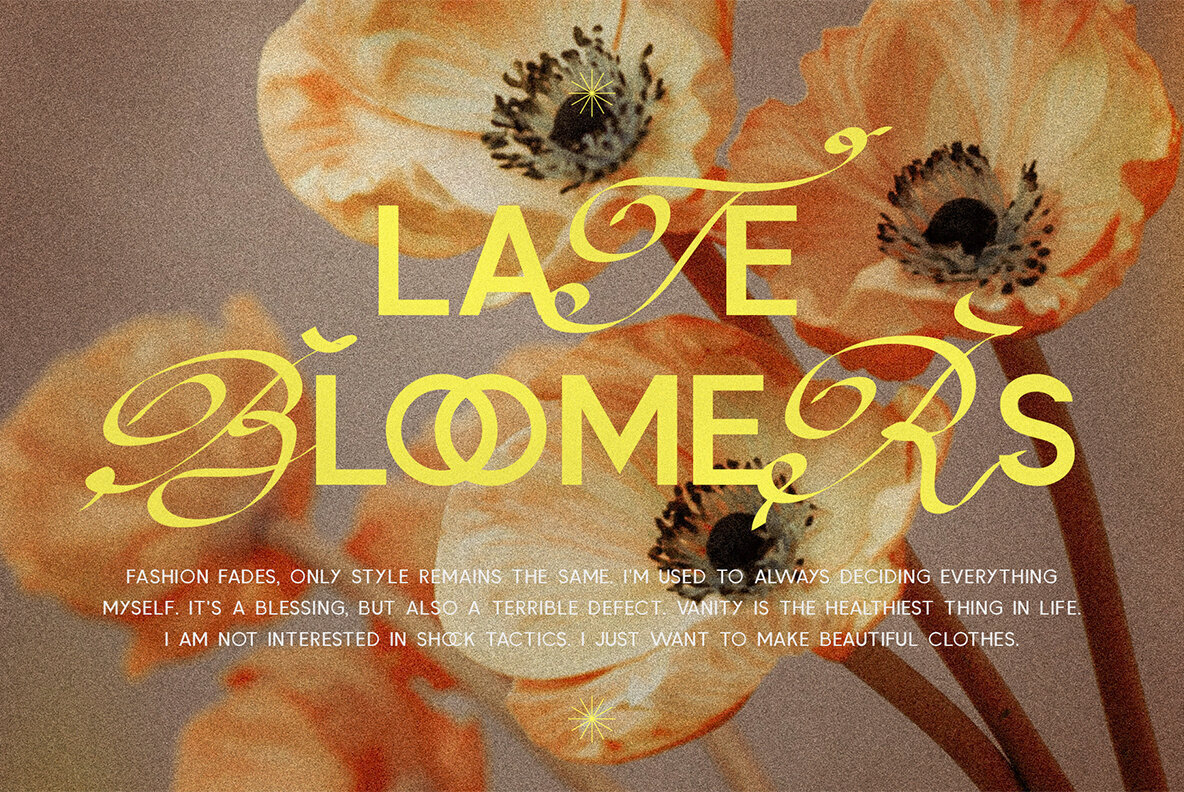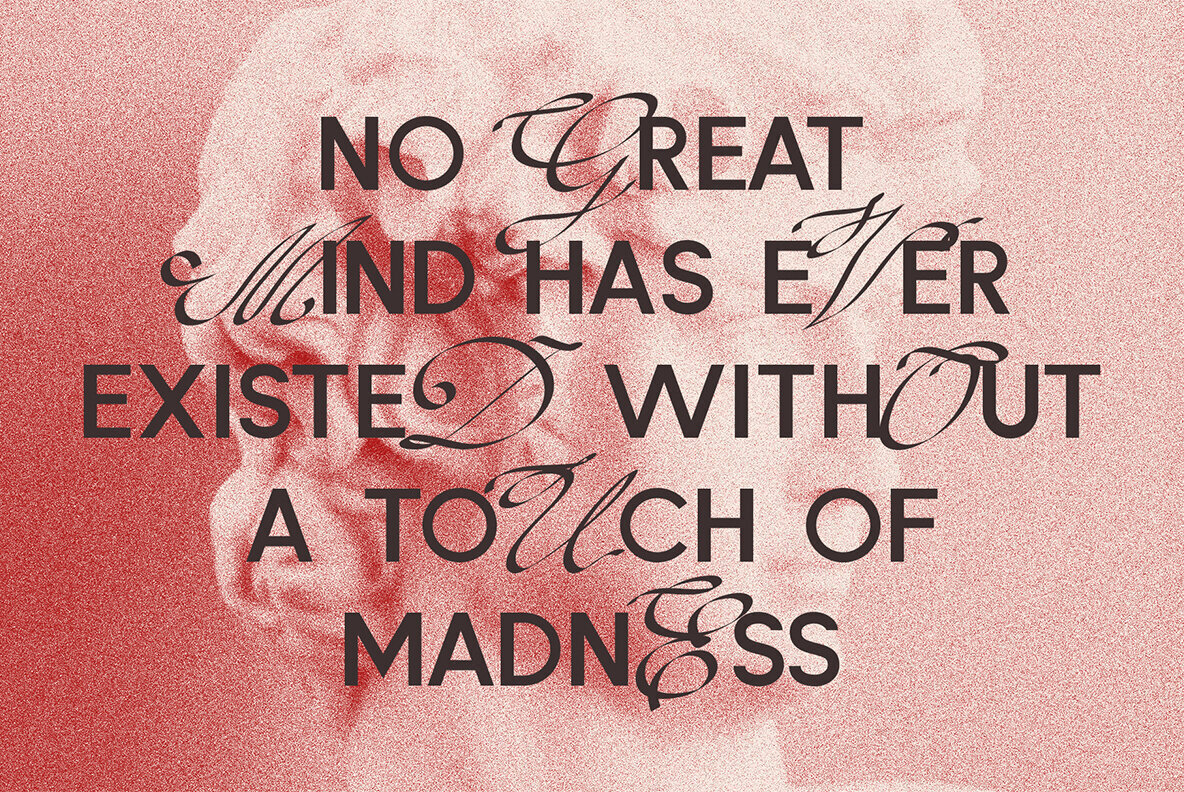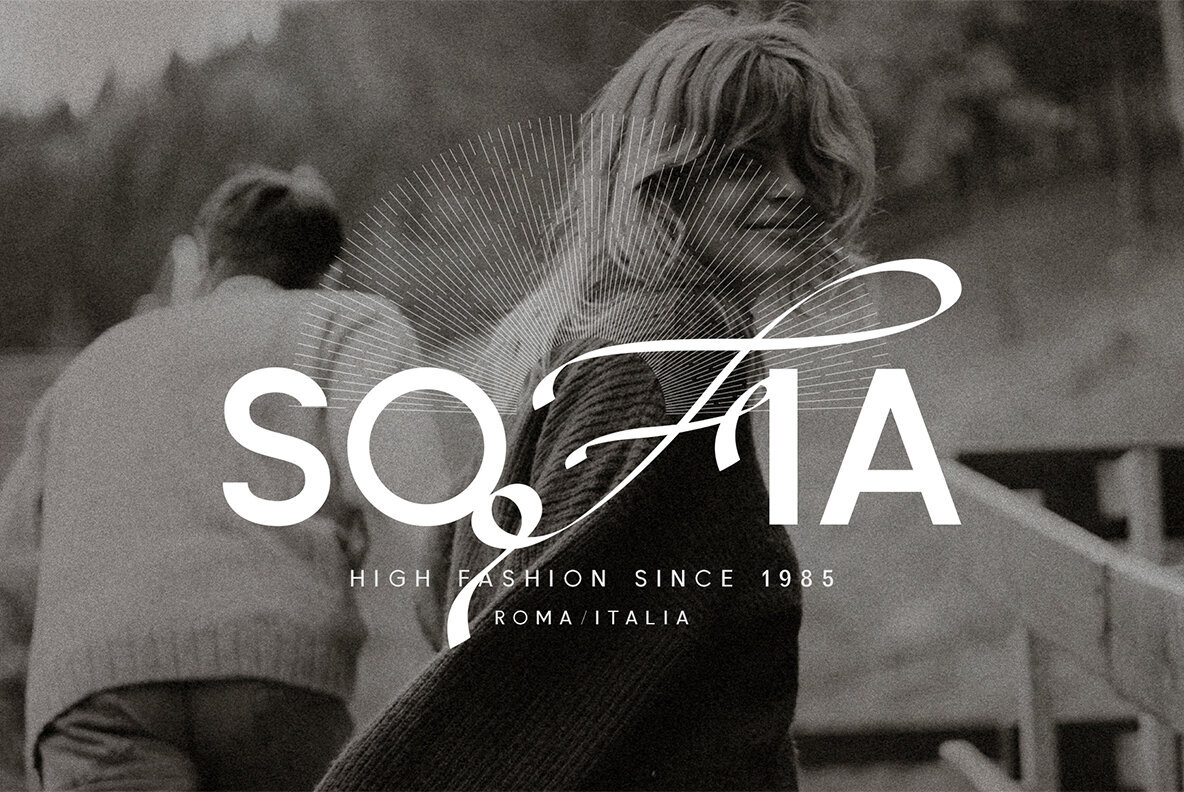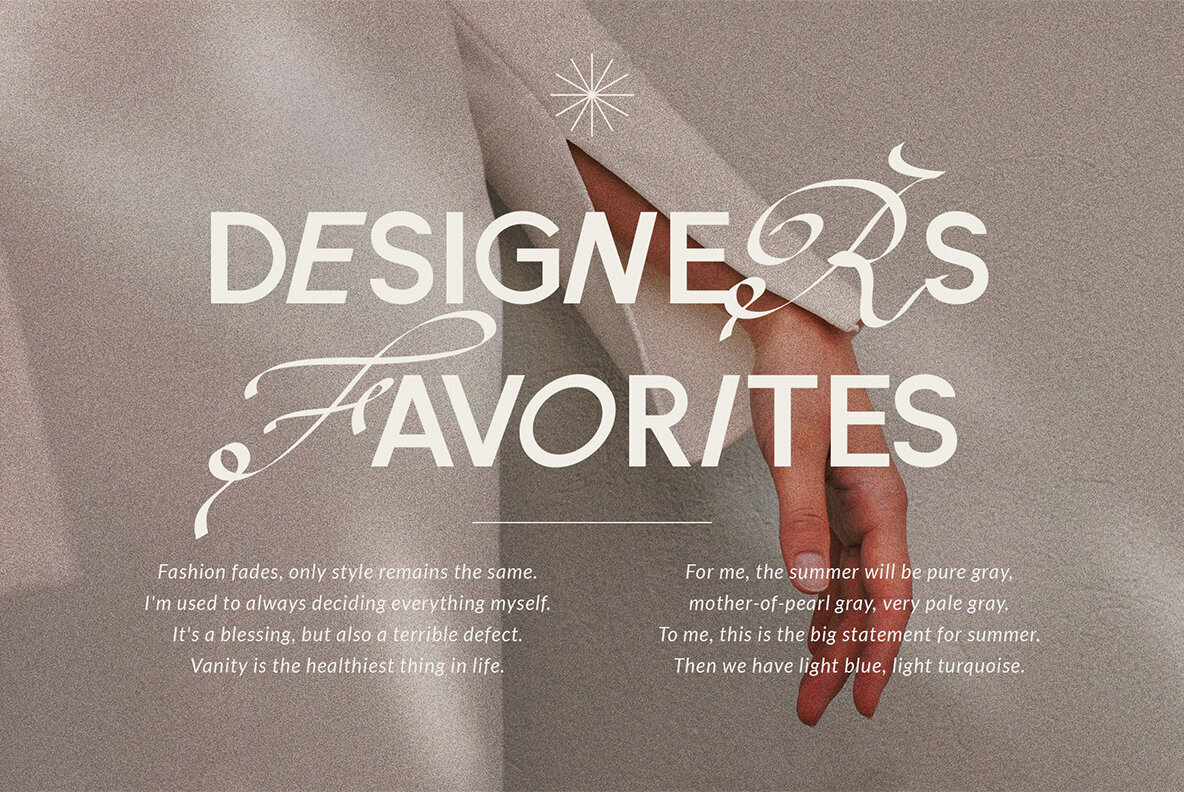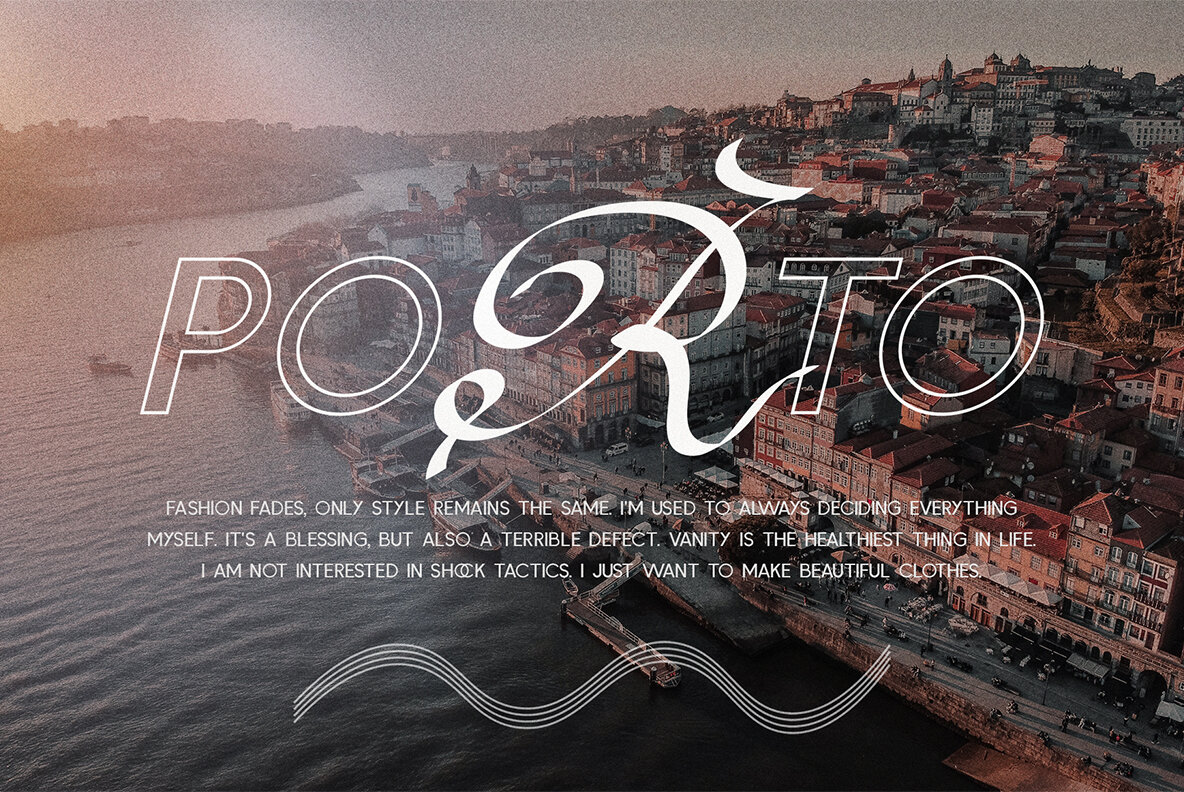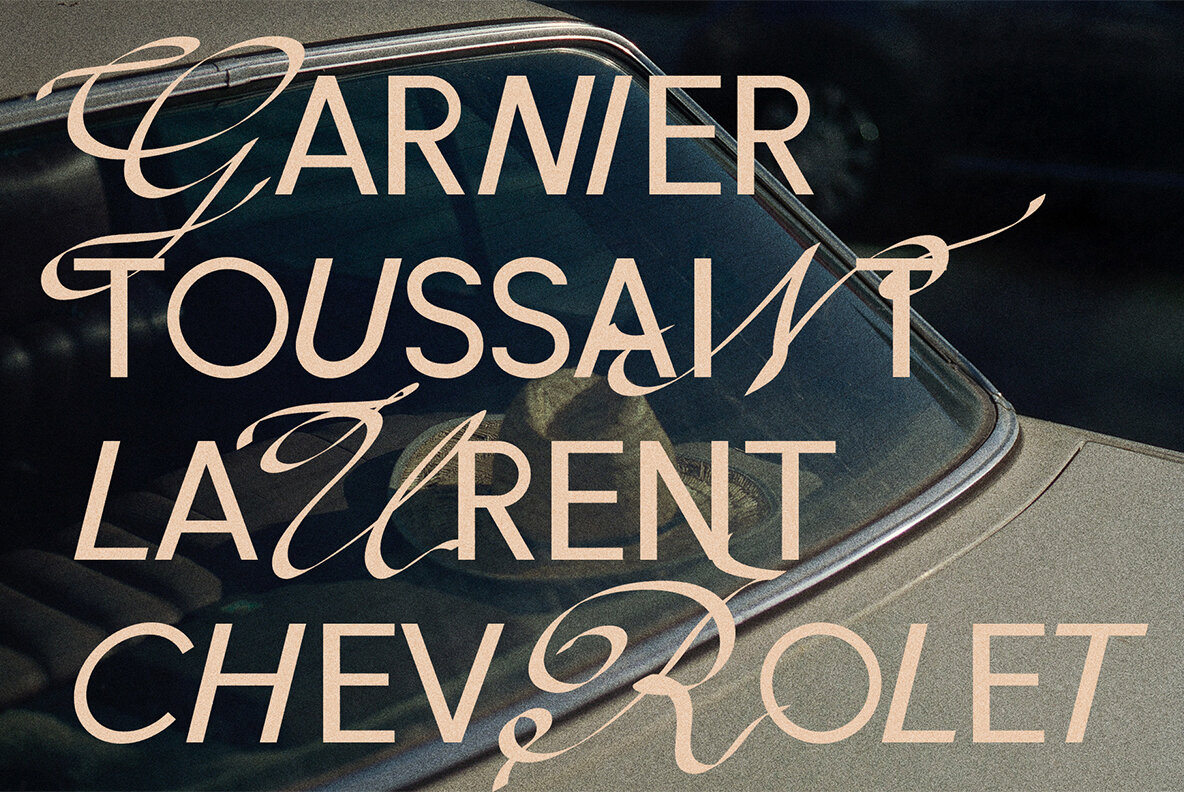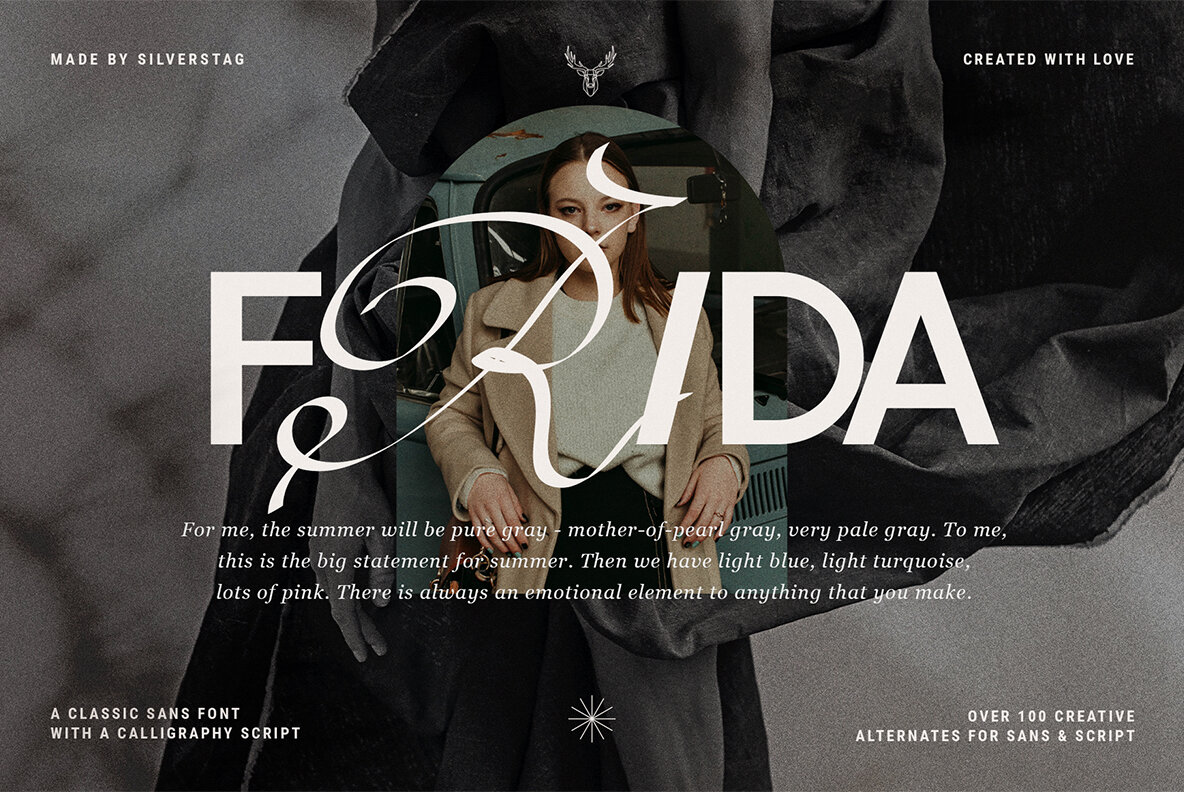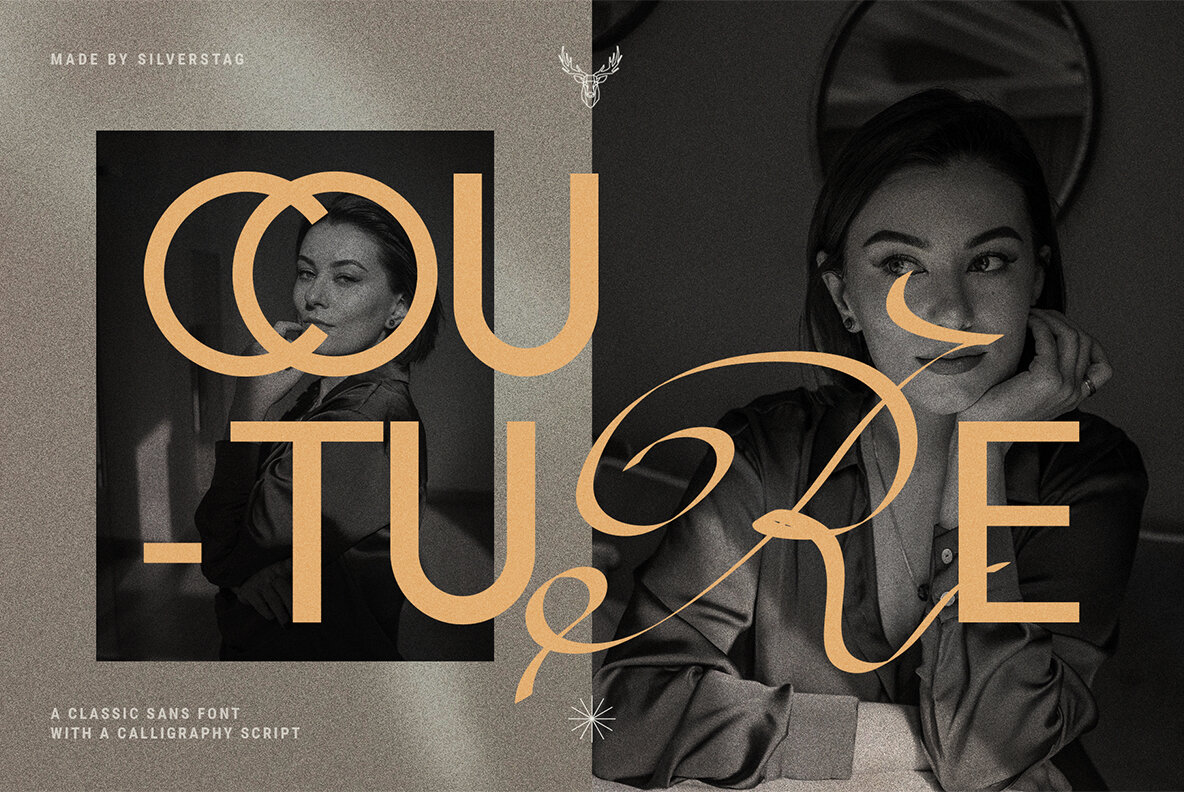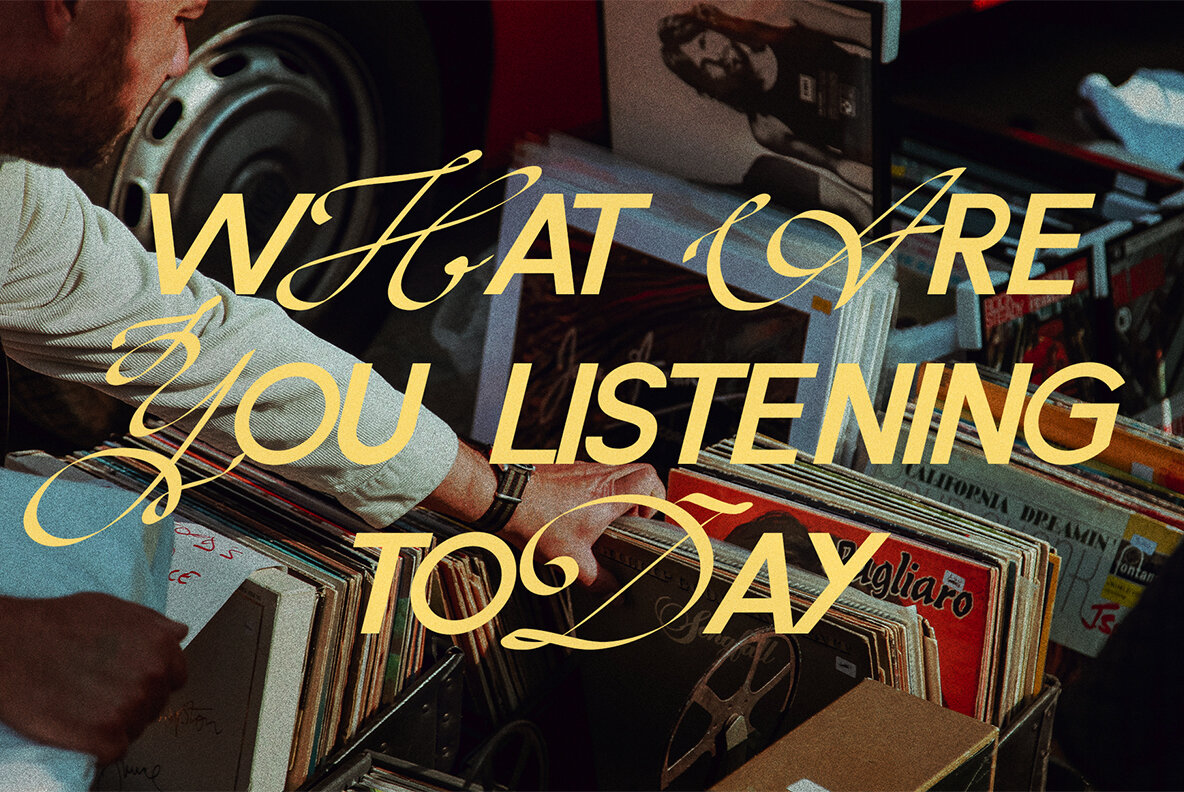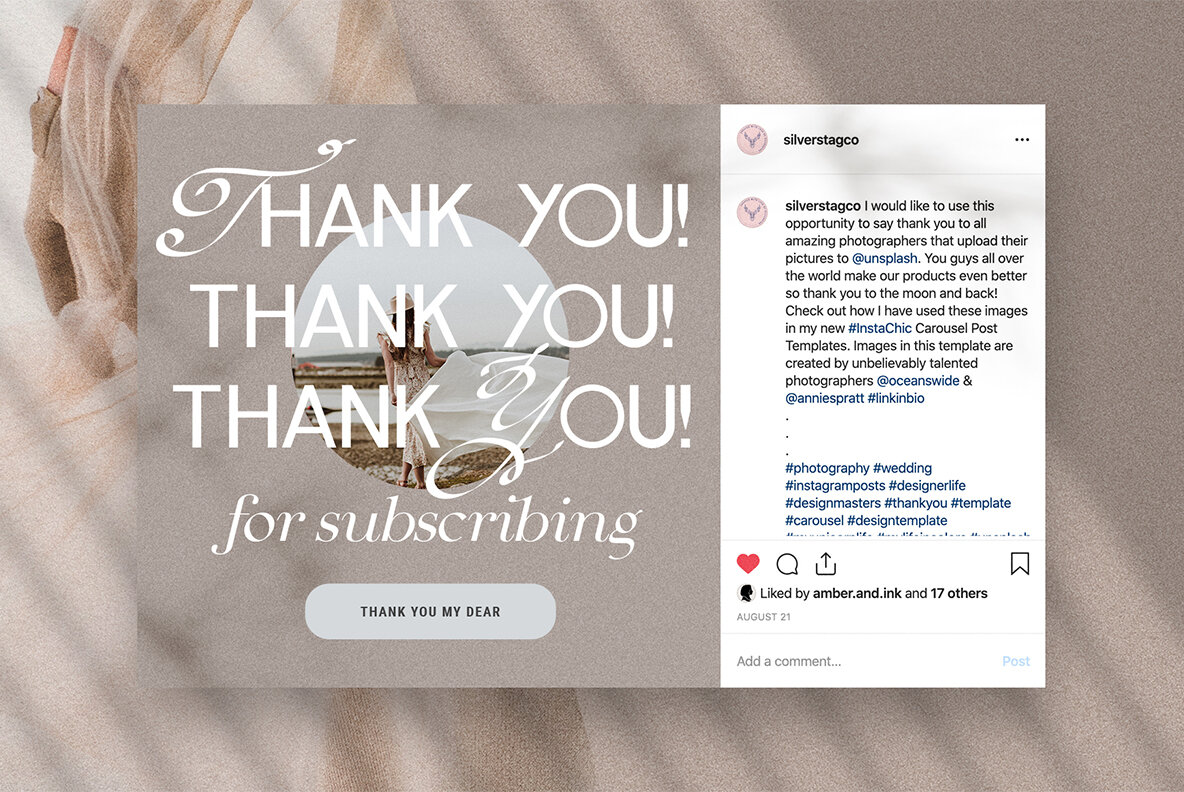
French Lovers Font Duo
Just earlier this month, I brought you an amazing sans & serif font duo and you loved it. This time, I am upgrading the game and I am launching a mix of modern & classic, a brand new sans & script font duo French Lovers. And even though it's a font duo, you will receive 3 fonts, but with all the alternate options described below you will basically have 18 different font versions.
I say it’s a font duo because it contains 2 different types of letters, a classic serif and a creative calligraphy script. However, I have included regular, bold, light, regular italic, bold italic, light italic, regular outline, bold outline, light outline, regular outline italic, bold outline italic & light outline italic sans, as well as regular, bold, light calligraphy script and regular, bold and light monoline script, so you will actually get 18 styles with this font family. All sans letters are available as uppercase letters and uppercase alternates, and script is available as lowercase letters & lowercase alternates.
• French Lovers - Sans & Script Duo comes with 18 different letter options regular, bold, light, regular italic, bold italic, light italic, regular outline, bold outline, light outline, regular outline italic, bold outline italic & light outline italic sans, as well as regular, bold, light calligraphy script and regular, bold and light monoline script.
• All sans letters are available as uppercase letters and uppercase alternates, and script is available as lowercase letters & lowercase alternates.
• Numerals & Punctuation
• Language Support For Each Option - Regular, Italic, Bold & Bold Italic